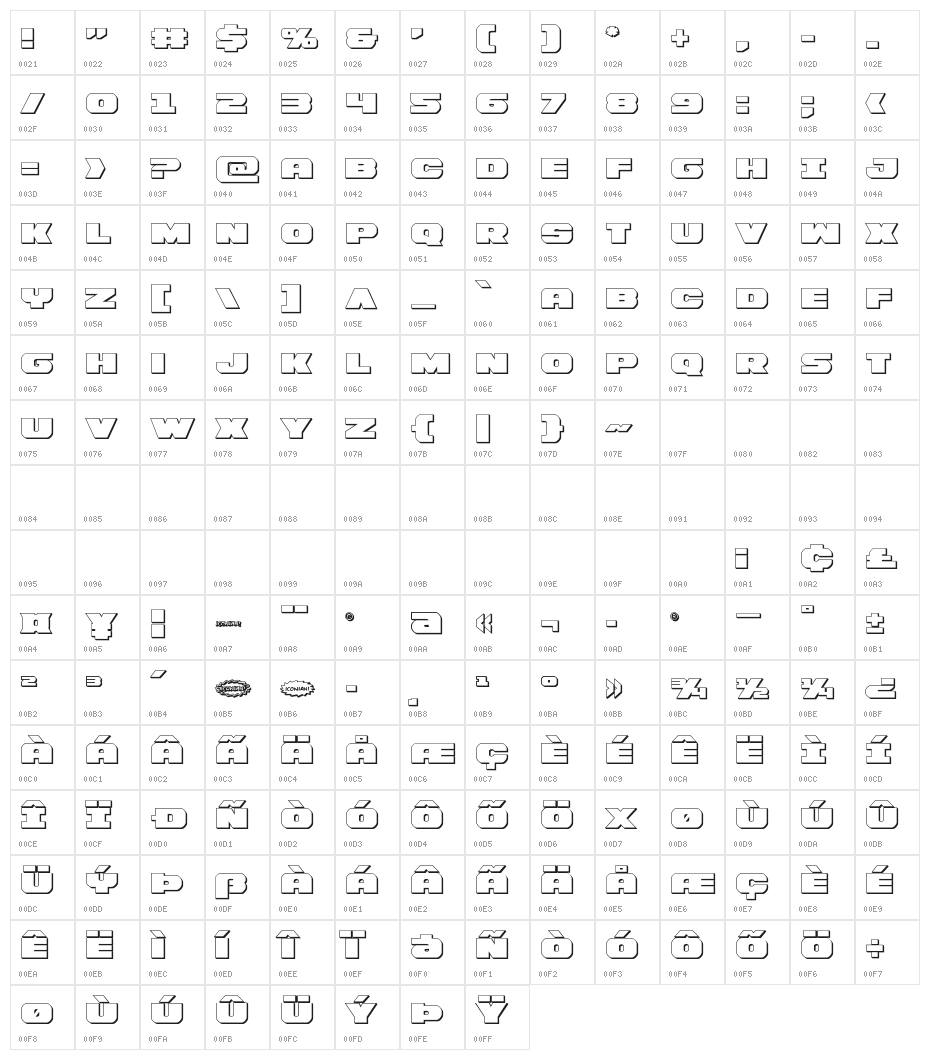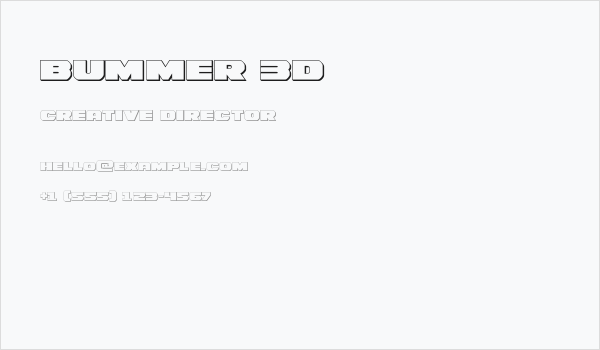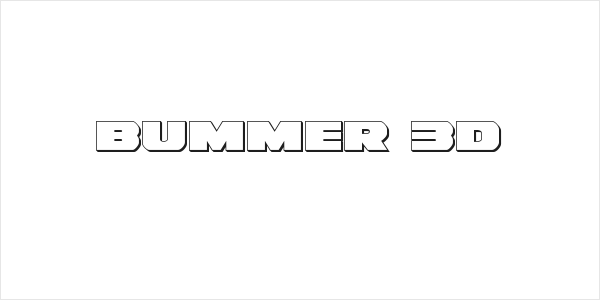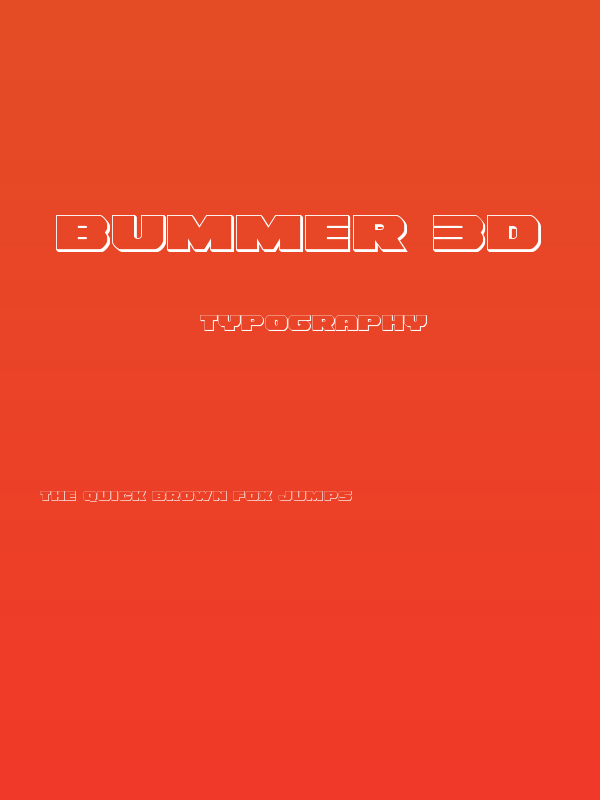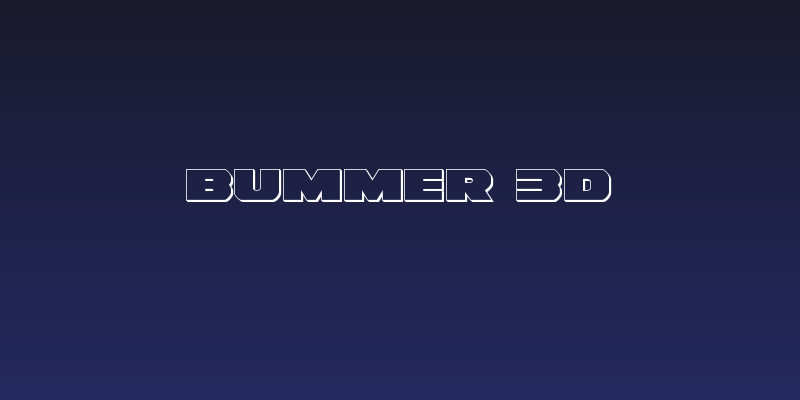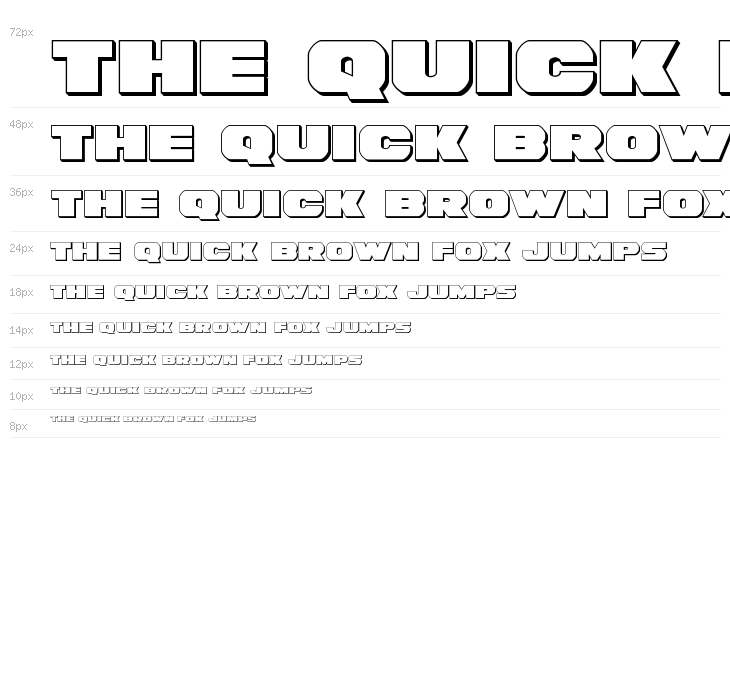
Bummer 3D Font
Bummer 3D Description
This font features a bold, three-dimensional style with a strong, impactful presence. Each character is outlined, creating a shadow effect that adds depth and visual interest. The geometric shapes are consistent throughout, with straight lines and sharp angles dominating the design. The uppercase letters are particularly striking, with a blocky appearance that commands attention. The numbers and special characters maintain this cohesive style, ensuring uniformity across all elements. This font is ideal for projects that require a bold statement and a modern, edgy look.
| Proposed Projects | Ideal for posters, headlines, logos, and any design needing a bold, modern touch. |